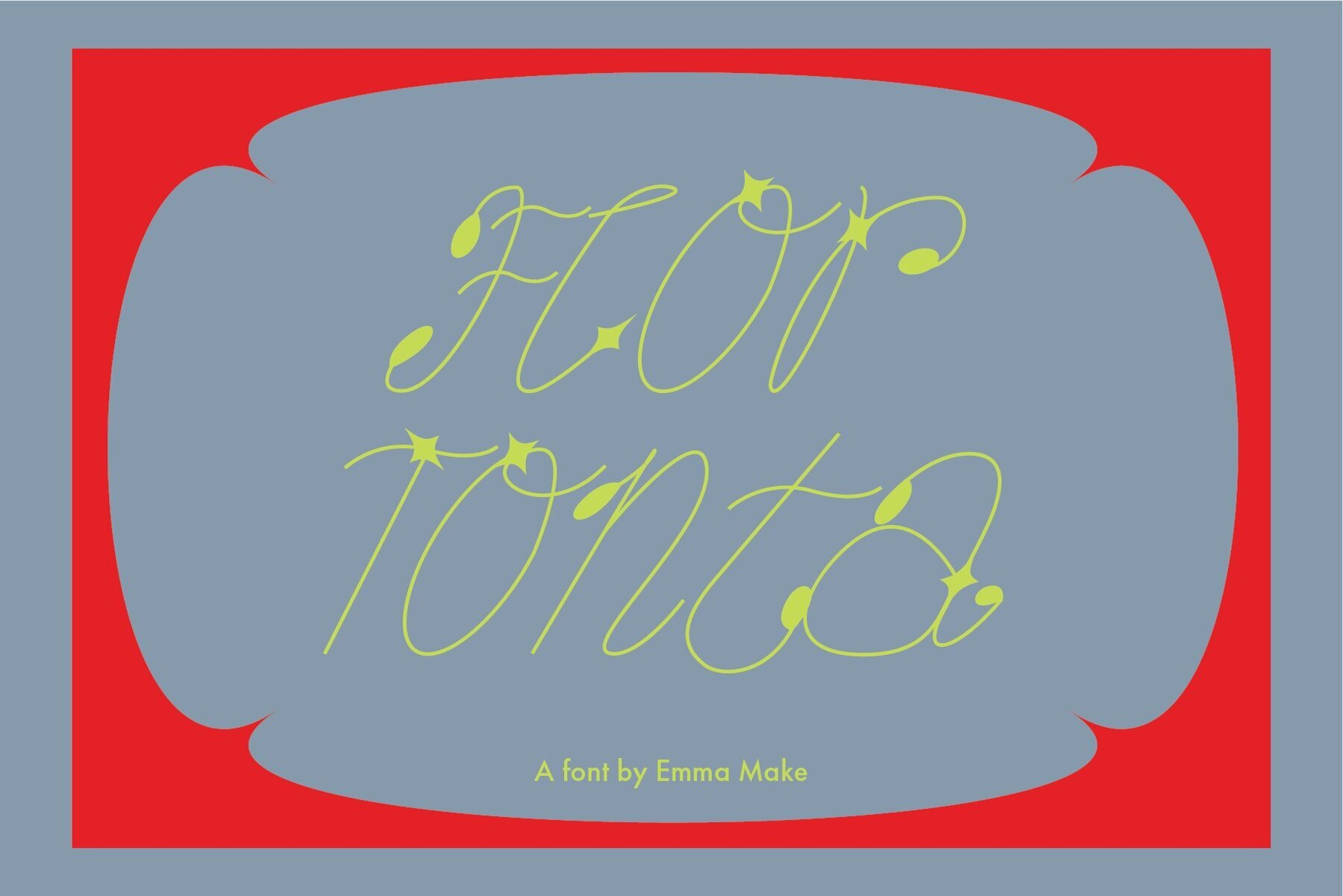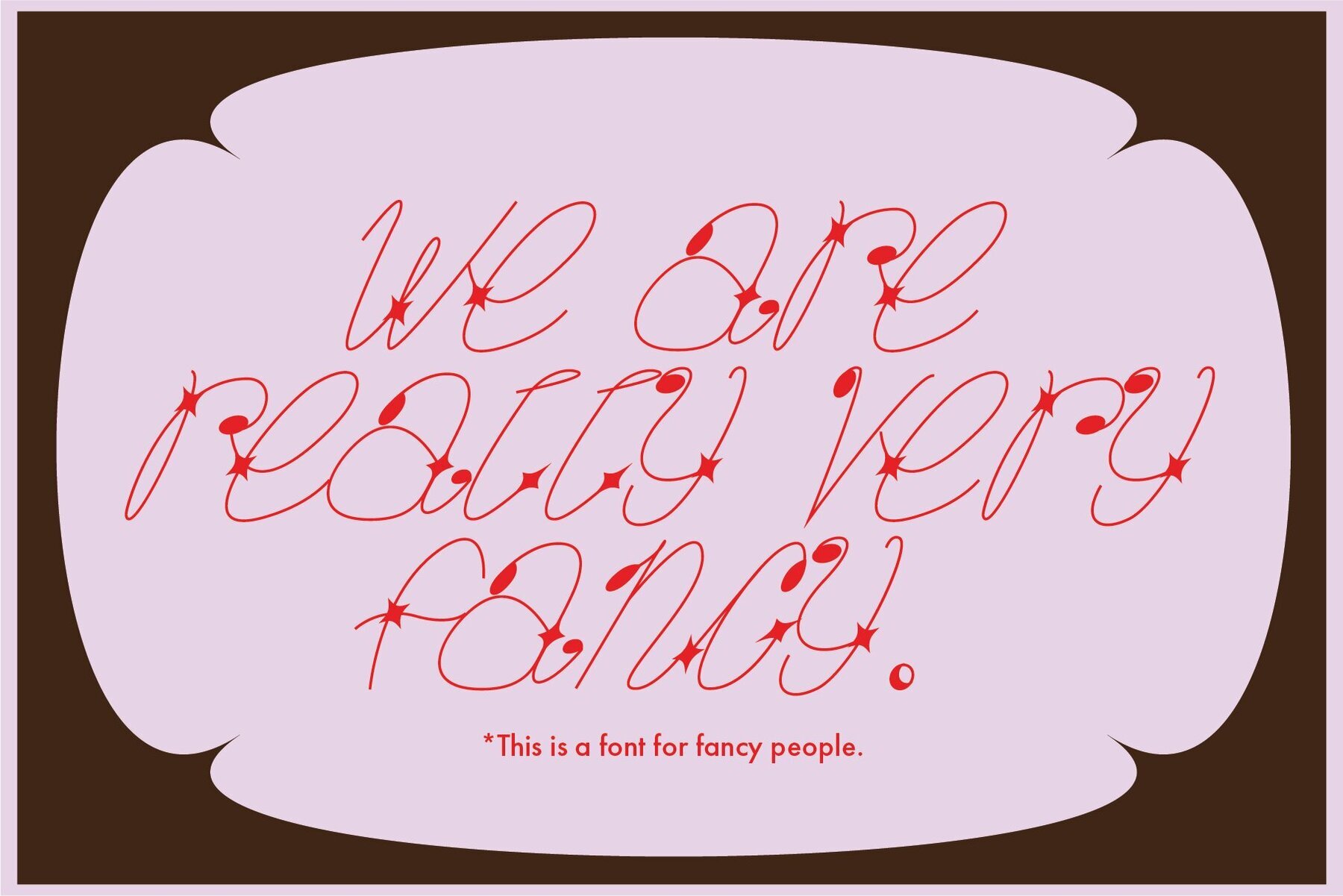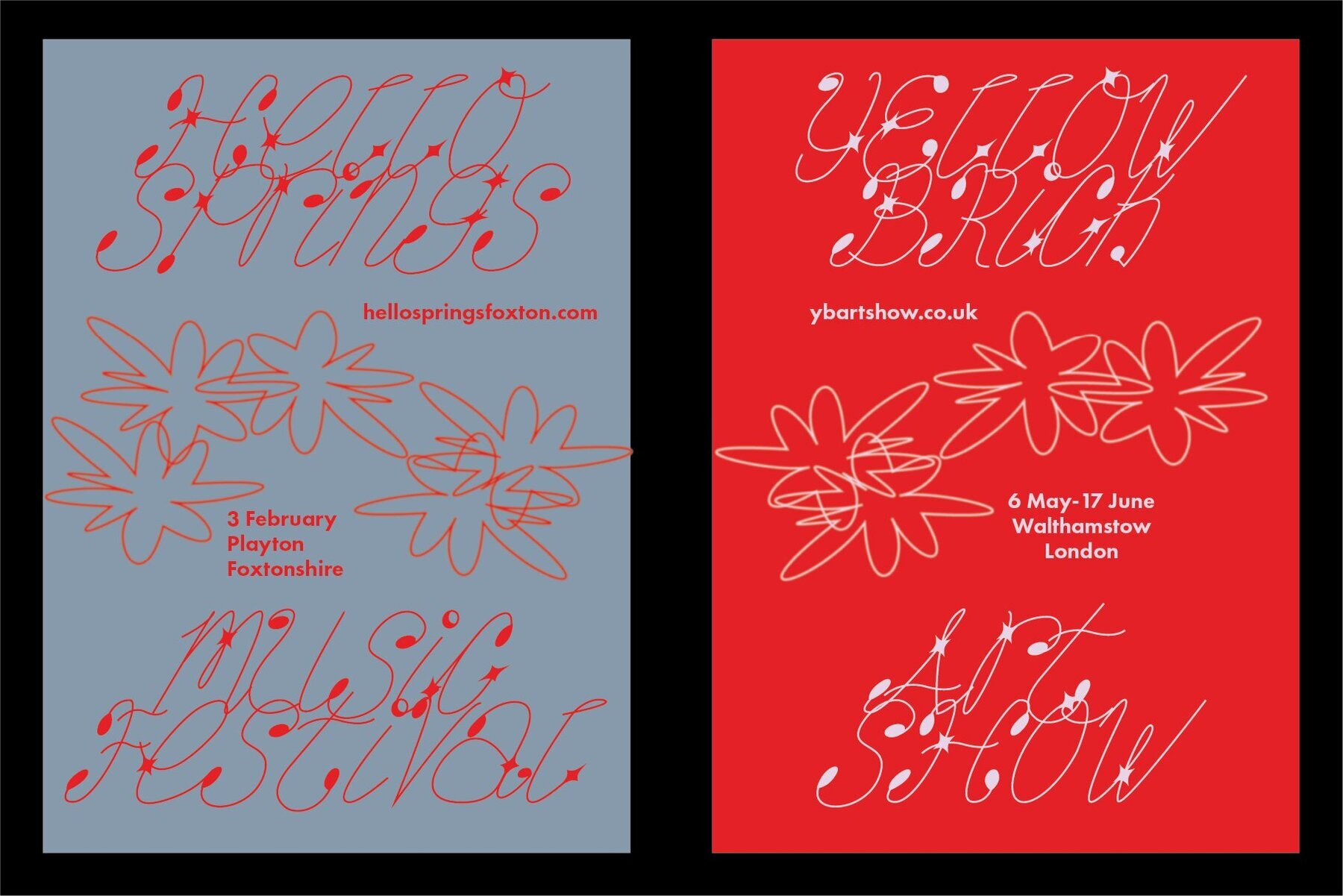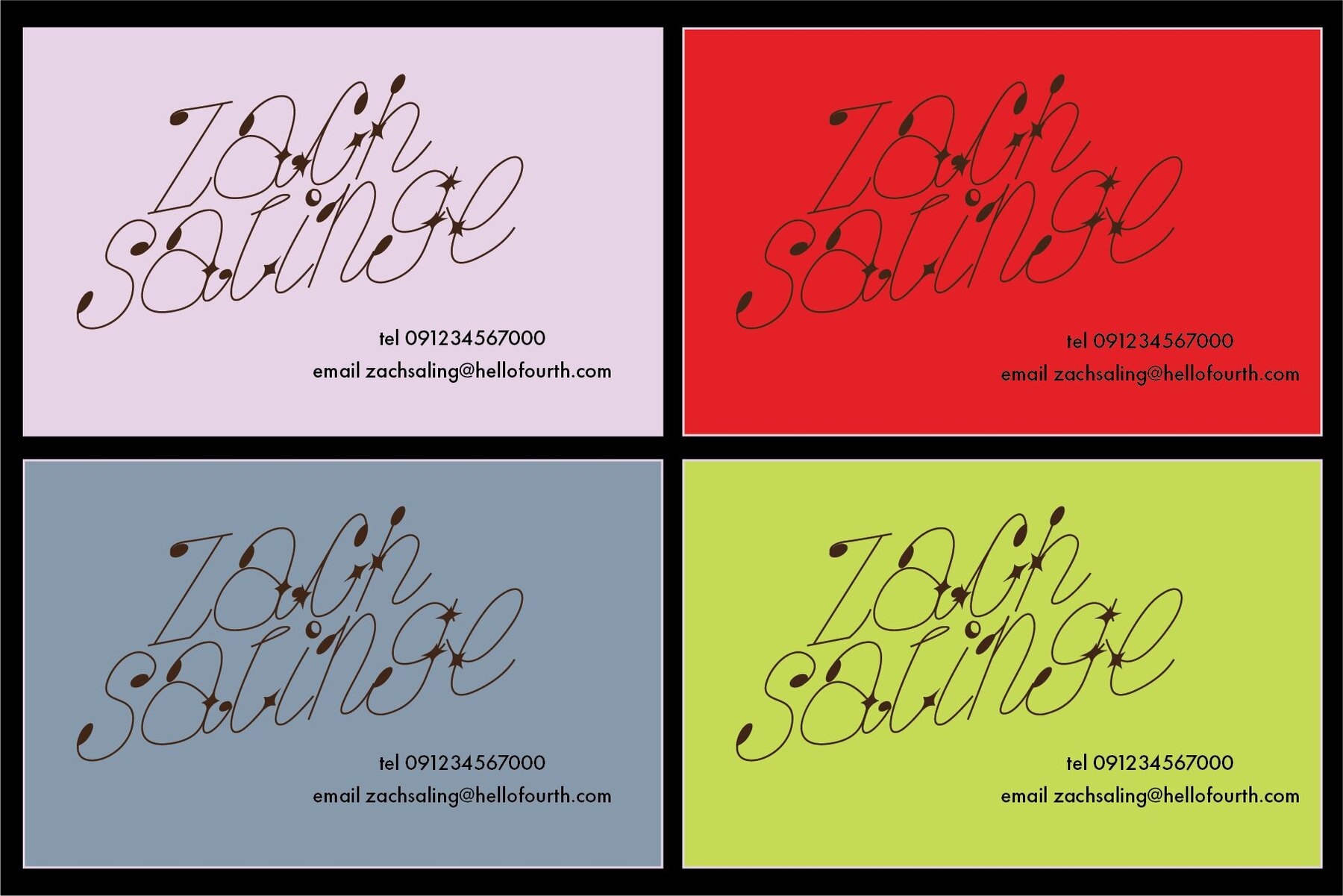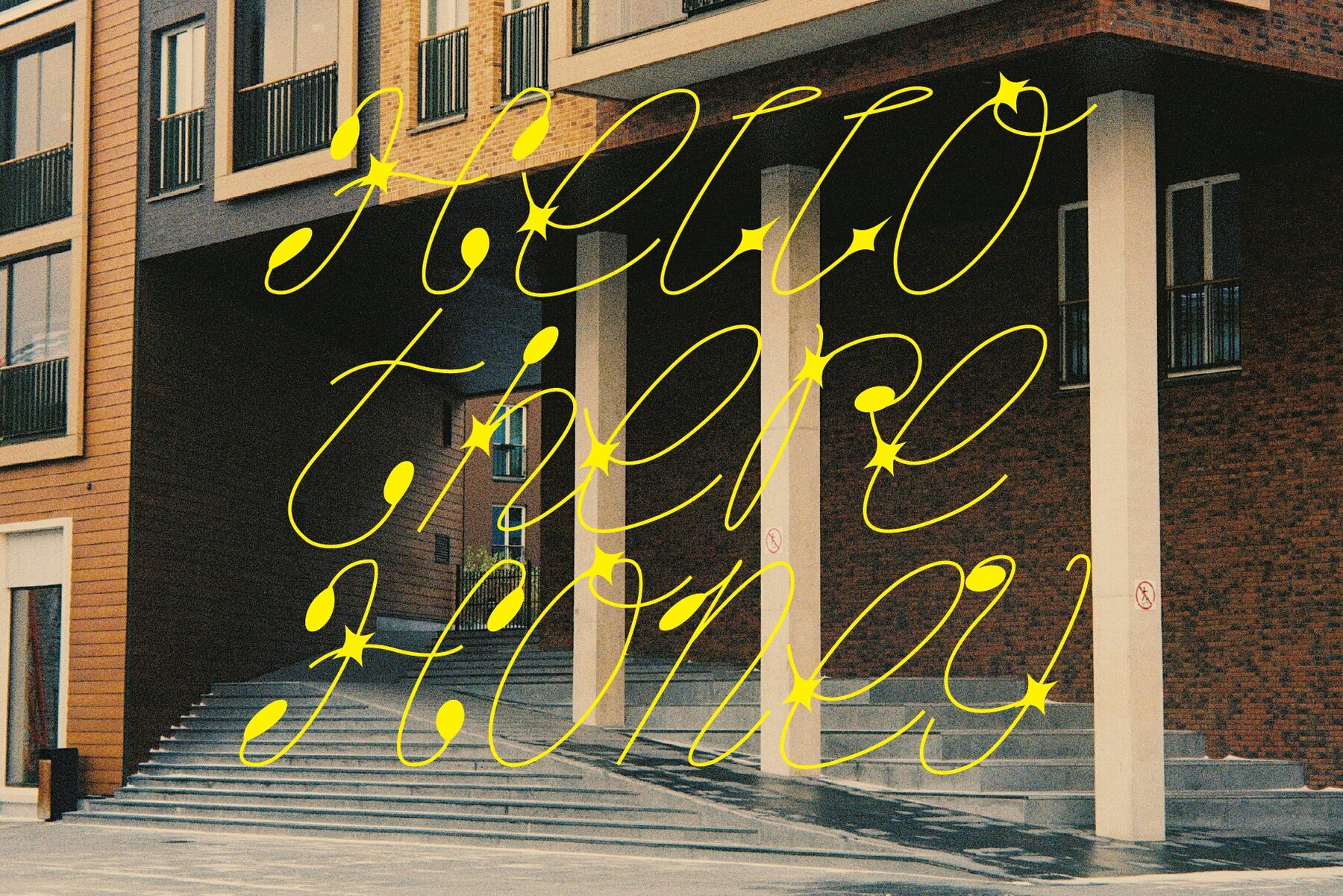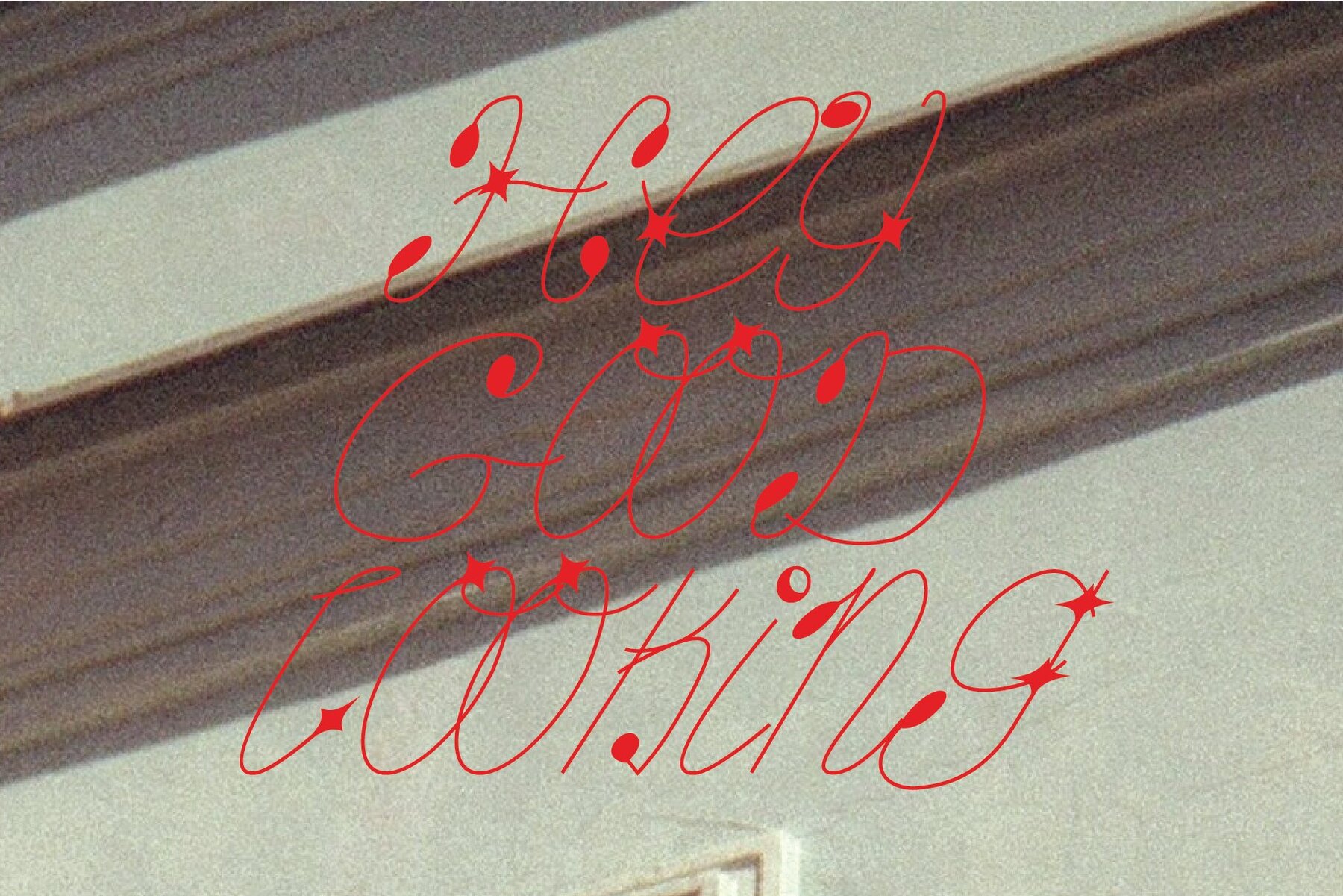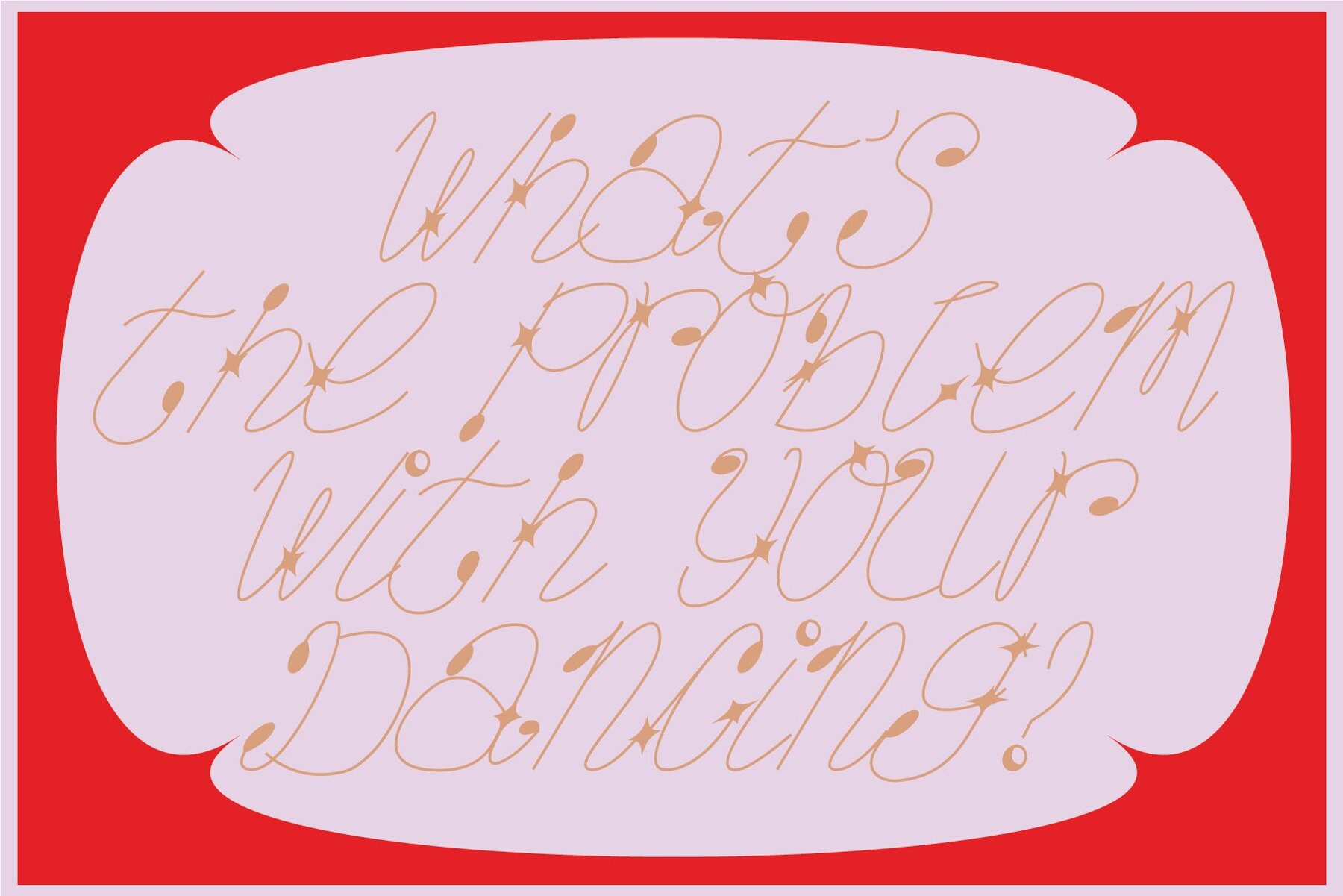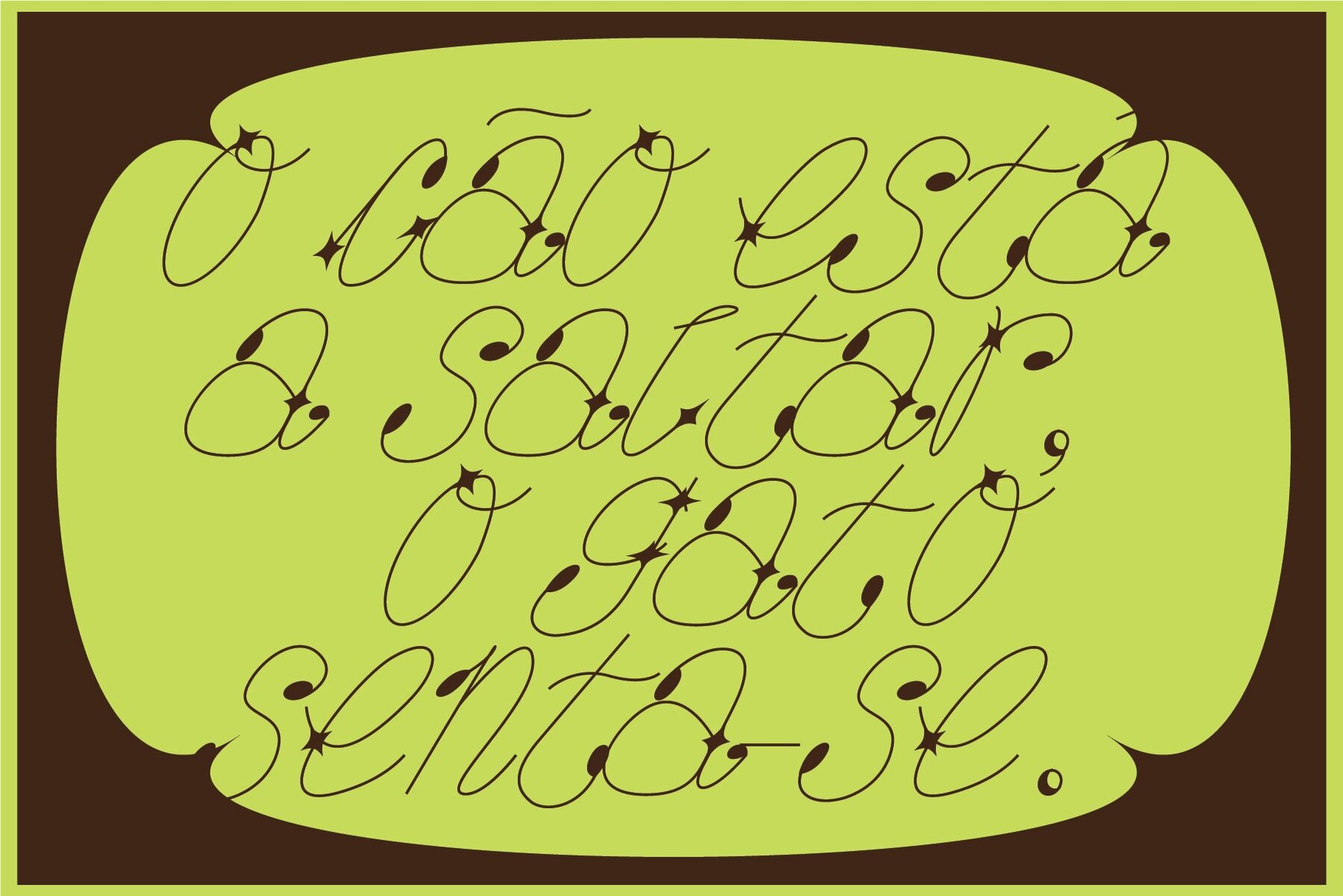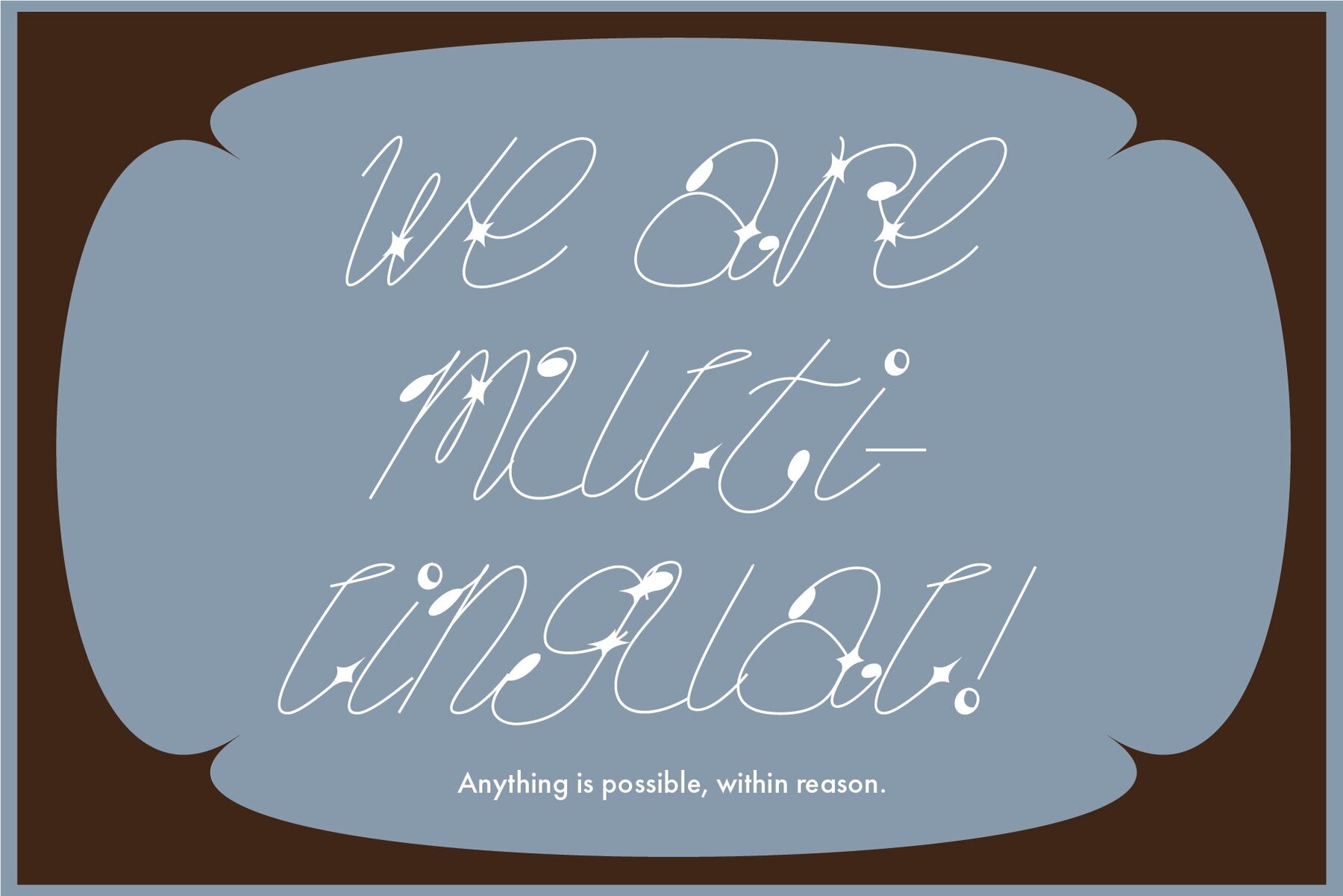
Flor Tonta Cursive Font
Flor Tonta
Flor Tonta invites you to explore the world of whimsical typography. This cursive font perfectly balances playfulness with elegance, making it an ideal choice for those with a creative spirit. Crafted with precision, its vector-based design ensures seamless scalability, catering to projects that range from eye-catching posters to captivating film credits.Flor Tonta: A Playful Cursive for Creative Designs